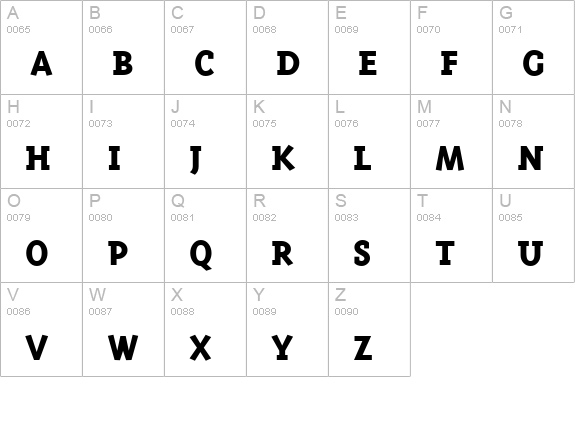
TriplexSerifExtraBoldLining Bold is a strong, high-contrast variant in the TriplexSerifExtraBoldLining typeface family \xE2\x80\x94 well suited to headlines, attention-grabbing titles, and strong calls-to-action.
TriplexSerifExtraBoldLining Bold is a captivating and bold font that commands attention with its strong and distinctive letterforms. Designed with meticulous attention to detail, this font exudes confidence and power, making it an ideal choice for headlines, titles, and branding materials. The thick and robust strokes of TriplexSerifExtraBoldLining Bold create a sense of stability and solidity, while the subtle serifs add an elegant touch to its overall design. Its unique combination of strength and refinement makes this font suitable for a wide range of design projects. Whether you're designing a logo for a luxury brand, creating eye-catching posters, or developing impactful editorial layouts, TriplexSerifExtraBoldLining Bold will make your creations stand out. Its versatility allows it to work seamlessly in both print and digital media, ensuring that your message is conveyed with maximum impact. One of the best things about TriplexSerifExtraBoldLining Bold is that it is freely available to download at FontsMarket.com. This means that you can easily access this stunning font and incorporate it into your designs without any hassle. So why wait? Take advantage of this fantastic opportunity and elevate your design projects with the striking presence of TriplexSerifExtraBoldLining Bold.